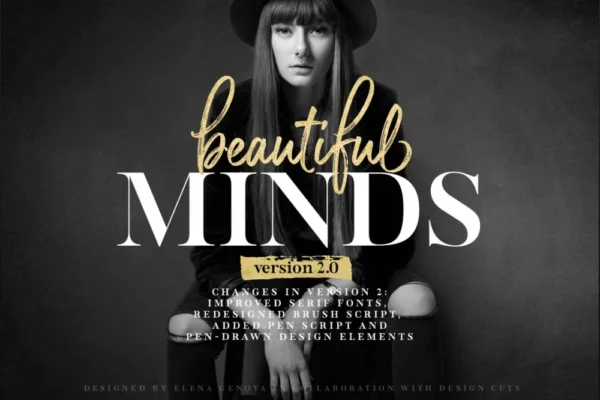
35 Elegant Wedding Invitation Fonts (Script & Calligraphy)
Have you been overwhelmed with wedding invitation designs and fonts on Pinterest? We understand. There are a lot!
Whether you choose foil or letterpress for your prints, the fonts you use will bring out true elegance. Today, we will point you in the right direction for the best elegant wedding invitation fonts to use. Digitally customized invites reflect your style. The invitation or save the date will be the first piece of correspondence a guest receives, and it will establish the tone for your event.
Furthermore, there are various kinds of typography used for invitation fonts. The Script typography is well known for its traditional styling and has a formal feeling while the Calligraphy fonts give a more customized feeling and with a blend of modern styling, it adds a creative and aesthetic look to your wedding or engagement invites.
If you’re new to the world of fonts, learning the fundamentals will aid you in selecting the right one for your invitations or your next invitation project. With that in mind, below are 35+ primary font types to consider while making your pick.
Top 10+ Best Wedding Fonts for Invitations and Design
1. Cherston —  A beautiful wedding font family
2. Sebastian Bobby — The best wedding font for authentic handwriting
3. Paper Tigers Script — A great floral handwritten font
4. Mollaroid — An eye-catching handwritten signature font
5. Marygold Font Duo Collection — A textured paper wedding font
6. Amalina Monoline Handwritten Font — An adorable wedding script font
7. Anthoni Signature Font — A classic calligraphy signature font
8. Palomino Font Family — An incredible font family designed with Blackwing 602 pencil
9. Opera Signature — An elegant duo wedding typeface set
10. Charlotte Script — A flowing handwritten wedding typeface
Top 35+ Elegant Wedding Invitation Fonts (Script & Calligraphy) Free & Premium
To make your invitations more appealing, here is a list of the most romantic premium & free wedding fonts for you to use for your next project.
1. Cherston
Cherston Wedding Invitation Font - Elegant Wedding Invitation Fonts
Cherston is a beautiful, luxurious, and readable duo font (display and script) with 10 styles. This font is incredibly adaptable, fitting a wide range of designs and lifting them to new heights. It is a collection of uppercase letter fonts that allows the creation of a unique design for wedding invitations.
2. Sebastian Bobby
Sebastian Bobby Handwritten Font Wedding Invitation - Wedding Invitation Fonts
Sebastian Bobby is a great place to start if you’re looking for a wedding invitation font with a creative touch. There’s a lot to like, it is a hand-drawn script font tailored using fountain pen along with multiple language support. The font can be italicized, which adds to its appeal.
3. Paper Tigers Script
Paper Tigers Script + Floral Elements Wedding Invitation Font
The Paper Tiger Script font suits grander wedding invitations since it includes a gorgeous floral illustration. The elegant calligraphy font is both classy and fashionable. Consider shaking things up on your wedding invitation with a dancing baseline of this gorgeous script fonts.
4. Mollaroid
Mollariod Wedding invitation font
Mollariod Wedding invitation font. Image credit: Design Cuts
Mollaroid handwritten signature fonts are eye-catching, hence it’re a great choice for wedding invitations. Mollaroid signature fonts look quirky and stylish at the same time.
This best wedding invite font is a handwritten typeface with realistic characters that have an elegant and modern feel to it. Mollaroid’s signature style gives it a more natural appearance and appeals to express love and passion.
5. Marygold Font Duo Collection
Marygold Font Duo Collection Wedding Invitation Font
Do you adore a wedding invitation on texture paper? The Marygold Font Duo Collection is a one-of-a-kind collection; it combines a handwritten signature font with elegant serifs, design features, and paper textures. This best wedding invite font is perfect for modern couples planning a joyful occasion.
6. Amalina Monoline Handwritten Font
Amalina Monoline Handwritten Font wedding invitation font
Amalina Monoline Handwritten Font. Image credit: Design Cuts
Amalina is a beautiful and adorable handwritten wedding invitation font that’s ideal for putting a pleasant spin. Amalina Script Style has a modern and fresh script that makes this font look exquisite, natural, fashionable, and ideal for any wedding invites that require handwriting flair. Take a shot!
7. Anthoni Signature Font
Anthoni Signature Wedding Invitation Font
Anthoni Signature. Image credit: Design Cuts
Add a personalized look to your invite with Anthoni Signature wedding invitation font. The hand-lettered effect typography with classic calligraphy signature style adds more elegance to the invite. Give it a go for titles and signatures!
8. Palomino Font Family
Palomino Font Family Wedding Invitation Font
Palomino Font Family. Image credit: Design Cuts
Even the tiniest elements can have a big influence. Take a look at this snazzy Palomino calligraphy family designed with the incredible Blackwing 602 pencil. The four sets (Script, Sans Serif, Condensed, and Design element) will be perfect wedding fonts for the invitations.
9. Opera Signature
Opera Signature Wedding Invitation Font
Opera Signature Wedding Invitation Font. image credit: Design Cuts
This elegant font duo combination of serif and script is the best fit as a wedding invitation font. If you want to keep things simple and elegant, you’ll need a font that meets the bill. Fortunately, this is where Opera Signature serif font enters the scene. And, for the handwritten wedding invitation font that includes modern calligraphy, nothing is better than the Opera Signature serif.
10. Charlotte Script
Charlotte Script Wedding invitation Font
Charlotte Script. Image credit: Design Cuts
The Charlotte Script Font, a modern and flowing calligraphy handwritten font, is perfect for wedding invites that calls for a handwritten touch. Each letter has at least eight different variations and it gives freedom to create designs by Opentype combinations that give you wedding invitations a modern look. Give it a fling!
11. Karmila Script
Karmila Script Wedding Invitation Font
Karmila Script. Image credit: Design Cuts
If you are looking for a decorative wedding invitation font with creative flair, Karmila Script is the ideal place to begin. Karmila Script is a fun and elegant script that will bring you joy and increase your creativity. Try it out and enjoy the richness of OpenType features!
12. Delicate Script Font
Delicate Script Font Wedding invitation Fonts
Delicate Script Font. Image credit: Design Cuts
With a highly detailed and smooth finish, Delicate script font is a sophisticated wedding invitation font. The ligatures are made to look natural handwriting when you type any word using Delicate script. This modern calligraphy font is OpenType, trendy, and a chic alternative!
13. TT Lovelies Script
TT Lovelies Script Wedding Invitation Fonts
TT Lovelies Script. Image credit: Design Cuts
The TT Lovelies Script is one of the most beautiful calligraphic handwritten fonts we’ve ever seen. It is a delightfully delicate typeface with endearing qualities that will sweep you off your feet. You’ll notice extra details like it has a huge set of contextual alternates if you look closely. Consider this wedding invitation font for beautiful titles and stylish lettering.
14. Summery Script Font
Summery Script Font Wedding Invitation Fonts
Summery Script Font. Image credit: Design Cuts
If you’re having a summer wedding, the Summery Script Font will blend perfectly with the theme. Summery is a lovely handwritten font with a fun, bouncing personality ideal for wedding invites. It’ll offer a splash of color and elegance!
15. Corinthiago
Corinthiago – A Modern Calligraphy Script Font Wedding Invitation Font
Corinthiago. Image credit: Design Cuts
Wedding fonts with modern calligraphy design are all the rage, and Corinthiago is one of the best. This beautiful handwritten font pays respect to vintage calligraphy in a stylish way. The lovely and elegant typeface is ideal for announcing your lovely wedding.
16. Coral Lovers SVG Watercolor Font Duo
Coral Lovers SVG Watercolor Font Duo Wedding Invitation Font
Coral Lovers SVG Watercolor Font Duo. Image credit: Design Cuts
Coral Lovers SVG Watercolor Font Duo is a package deal of 4 fonts when choosing the best wedding invitation fonts. The watercolor effect on fonts gives the letters more dimension and draws attention to the title. The Coral font Duo creator has included alluring features and elements to grace your work.
Choose this one with several ligatures, alternate letters, the regular version, and the watercolor version. It is modest yet sophisticated as each letter is hand-drawn and personalized!
17. Le More Collection Font Duo
Le More Collection Font Duo Wedding Invitation Fonts
Le More Collection Font Duo. Image credit: Design Cuts
This wedding invitation font is a duo of contemporary serif fonts and scripts. Le More Collection Font Duo adds a modern yet classy look to the invites created with it. The font styling is fluent with a bundle of automatic ligatures and various alternative letters to enhance your beautiful design.
18. La Roche Font Duo
La Roche Font Duo Wedding Invitation Fonts
La Roche Font Duo. Image credit: Design Cuts
La Roche Font Duo is a lovely, free-flowing font that mixes beauty with a touch of nature. This wedding invitation font is a combination of elegant script and modern serif. It has legible lettering and would be appropriate for a formal announcement or wedding invitation.
19. La Luxes
La Luxes Font Duo + Logos Wedding Invitation Fonts
La Luxes Font Duo. Image credit: Design Cuts
A classic font duo with lots of customization options. La Luxes wedding invitation fonts are a classic duo comprised of ligature-rich serif and elegant script. You may indulge in a luxurious typography combination to style your stunning invite. To add up, La Luxes has 8 free customizable logo templates with multi-lingual support.
20. Abigail – Unique Ligature Font
Abigail – Unique Ligature Font Wedding Invitation Fonts
Abigail – Unique Ligature Font. Image credit: Design Cuts
If you’re seeking a distinctive and exquisite wedding invitation font, you’ve come to the right place. Abigail is a unique ligature font comprised of modern and classy font shapes. Add into the wedding invitation for better graphic design that communicates well with your guests.
21. The Amoret Collection
The Amoret Collection Wedding Invitation Fonts
The Amoret Collection. Image credit: Design Cuts
Planning on a luxurious wedding? The digital flyer/invitation is important in the wedding because it reflects your theme. The Amoret Collection is a luxurious wedding invitation font that is a duo of sans fonts and luxury script that contrast and compliment at the same time. A collection of fluent, classy, and elegant fonts with beautiful strokes!
22. Classico
Classico – Modern Serif Font Wedding Invitation Font
Classico – Modern Serif Font. Image credit: Design Cuts
Are you planning a conventional wedding? Classico, a beautiful and classic font style, is the way to go. It is a one-of-a-kind combination of serif and sans serif fonts with regular and bold, giving it an elegant appearance. This light, high-contrast typeface is ideal for feminine designs, fashion mastheads, and wedding invites. It’s ideal for high-end events.
23. Muse
Muse – Chic Display Serif Wedding Invitation Fonts
Muse. Image credit: Design Cuts
Muse is a stylish and elegant display serif with striking contrast. If you like to keep things trendy and in fashion, Muse is the ideal wedding invitation font for you. Designed to generate exquisite, fashionable lifestyle designs, titles, and magazines, among other things. Standard ligatures are included in the font. Give it a try!
24. Kinfolk
Kinfolk – Modern Serif Font Wedding Invitation Font
Kinfolk. Image credit: Design Cuts
We’re delighted to present Kinfolk, a timeless style that’s ideal for both personal and commercial projects. It’s clean, stylish, and simple, and it works well with both old and contemporary themes. It is a gender-neutral font perfect for wedding invitation headlines.
25. Francie Font Duo
Francie Font Duo Wedding Invitation Fonts
Francie. Image credit: Design Cuts
Nothing spells romance like a calligraphy-inspired classic typeface that will look great on anything from custom invitations to product labels that need a little something extra. Francie is a gorgeous wedding font duo collection, perfect for crafted invitations.
26. Finnmark
Finnmark – Elegant Sans Typeface Wedding Invitation Font
Finnmark. Image credit: Design Cuts
Finnmark is a classic choice. This one packs a punch with its simplicity for brides and grooms who want to avoid the script and calligraphy styles. Choosing the appropriate wedding invitation fonts is one of the most exciting aspects of the design process (though it’s often overlooked). We highly recommend this classic font if you want to keep it stylish and elegant.
27. Beautiful Minds
Beautiful Minds – A Versatile Font Family Wedding Invitation Font
The Beautiful Minds font family is gorgeous and subtle with its variety of ligatures and stylistic alternatives. This new font family is a duo that has a paintbrush effect for the script to complement the elegant serif typography. To design the wedding invite, if you chose Beautiful Minds, there is a lot to experiment with. It’s is a must-have for your graphic designer toolkit.
28. Bridgesty – Modern Calligraphy
Bridgesty - Modern Calligraphy
Bridgesty – Modern Calligraphy. Image credit: Envato Elements
When it comes to the perfect graceful and the best fanciful font for weddings, Bridgesty certainly takes the cake. With thin unique lines and fanciful twirls, this modern calligraphy font is just right for any wedding that wants to be pretty and over the top.
When it comes to weddings, very often, most people gravitate to the elegant and minimalist, however, decorative fonts like Bridgesty can be just what you need to liven up and add personality to your invitations.
29. Jamarius Script Font Trio
Jamarius Script Font Trio
Jamarius Script Font Trio. Image Credits: MyFonts
The Jamarius Script Font Trio is a handwritten calligraphy font modern script with an irregular baseline. It has a vintage, classic, and elegant finish. Using this font on a wedding or a greeting card will give it an enhanced and elegant look.
30. Bralyn
Bralyn
Brayln, Image Credits: Envato Elements
The Bralyn font combines copperplate and contemporary typeface. This font sets a classic and elegant tone for projects like wedding invitations. The extra bouncy curves and loops is the best font you can add for your save the date card.
31. Bromello
Bromello
Bromello, Image Credits: Envato Elements
Bromello is a modern script typeface using a hand-made brushing style. Bromello is a standout font that is a perfect selection for your wedding invitations. The hand written technique of this font lets you design your card in a modern and unique way.
32. Mustache Font
Mustache Font
Mustache Font, Image Credits: Envato Elements
Mustache font has a unique and eye-catching design. The font comes in four different styles: script, round, swash, and smooth. The combination of four different styles makes your wedding cards elegant and royal.
33. Lovelyn
Lovelyn wedding font
Lovelyn wedding font, image credits: design cuts
The Lovelyn font is an attractive tool for producing elegant decorative letterings for book covers, posters, and packaging. You can also make a greeting card, craft design, any DIY project, book title, wedding font, pop vintage design, retro design, or any purpose to make your art or design project look elegant and classy.
34. Elegant Wildflower Wedding Font
elegant wildflower wedding font
elegant wildflower wedding font, Image credits: design cuts
The Elegant Wildflower Wedding font has a romantic and minimalist design with a mix of hand-drawn floral art-line illustrations & modern calligraphy. This font can also be suited for menu cards and thank you cards. These fonts are available in 4 different colors.
35. Elegant Modern Wedding Font
Elegant modern wedding font
Elegant modern wedding font, Image credits: design cuts
The Elegant Modern Wedding font contains over 30 separate designs and a collection of 10 ready-to-use wedding stationery suites. This set gives you a combination of unique colors. It also includes 7 line-art illustrations, a fonts guide, and a user guide.
36. Margarita Pro
Margarita Pro
Margarita Pro. Image Credits: Design Cuts
If you are searching for pro fonts that support multiple languages, Margarita Pro is the ideal choice. This font is a formal script font that supports multiple languages and also includes punctuation glyphs and alternatives.
This font is ideal for designing wedding invitations, magazines, menus, greeting cards, and social media posts. This is also ideal for headers and titles as well. Margarita Pro font comes with a set of lowercase, uppercase, range of alternatives, and numerals.
37. Delizius
Delizius
Delizius. Image Credits: Design Cuts
Are you searching for the best font in a combination of retro, vintage, and modern calligraphy styles? Delizius is the ideal font for your project. This font gives exotic nuances to your project with the characters it has.
Using a retro font with consistent thickness combined with simple and elegant vintage-style swashes will enhance your projects. The position of the letters makes them look as though they are moving which is a trending characteristic of modern calligraphy.
Our Favorite Wedding Invitations Fonts
Still undecided? Check out our favorite wedding invitation fonts below!
Cherston | image credit: Design Cut Delizius | image credit: Design Cuts Mustache Font Bralyn | image credit: Envato Elements Bromello | image credit: Envato Elements la luxes | image credit: Design Cuts Beautiful Minds – A Versatile Font Family Kinfolk – Modern Serif Font | image credit: Design Cuts muse | image credit: Design Cuts Finnmark – Elegant Sans Type Jamarius Script Font Trio | image credit: MyFonts Lovelyn wedding font | image credit: Design Cuts
Frequently Asked Questions
What is the best wedding font overall?
The best wedding typeface overall would be Cherston. This font has the perfect balance of being decorative and elegant making it invaluable for wedding invitations.
What is a wedding font?
Wedding fonts typically refer to fonts used for wedding communication in invitations, images, videos and on any wedding memorabilia. These fonts generally need to have an overall elegant or decorative aesthetic due to the nature for which they are used.
What is a good handwritten font for weddings?
Sebastian Bobby, Amalina Monoline Handwritten Font and Bridgesty are some great handwritten wedding fonts. These fonts have an authentic yet decorative feel to them making them perfect for wedding invitations.
What is a good font for elegant wedding invitations?
Muse and Finnmark are two great elegant fonts that have a timeless feel to them.
What is the best graceful font for a wedding?
Bridgesty is one of the best ostentatious wedding fonts on our list. Unlike several of the more typical ones Bridgesty comes with fanciful twirls and lines making it a great choice for anyone looking to be extra.
What is a great versatile wedding font family?
Beautiful Minds is one of the most versatile wedding font families on this list. With it’s paintbrush font and it’s more elegant serif typography, this font pack is the whole package.
What is the best luxury wedding font?
When it comes to the best luxury wedding fonts, La Luxes, Kinfolk, and Finnmark are our top choices. These fonts do a great job with conveying elegance and high-end class.
Are you unsure which option is ideal for your invitation? Don’t worry, you can always choose more than one! That’s the allure of these wedding fonts- you know they’ll look even better when combined. The right font will add style and give meaningful insight into your wedding theme.